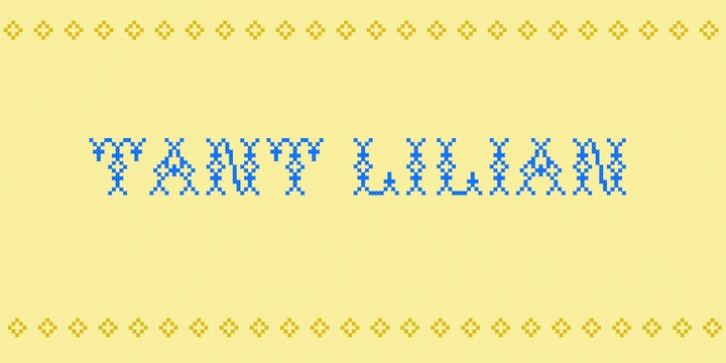
Tant Lilian was designed by Lars Törnqvist and published by Cercurius. Tant Lilian contains 1 style.
A thin, very elegant caps-only cross-stitch font, based on an embroidery pattern from the end of the 19th century.
Accented letters for Western languages are included.